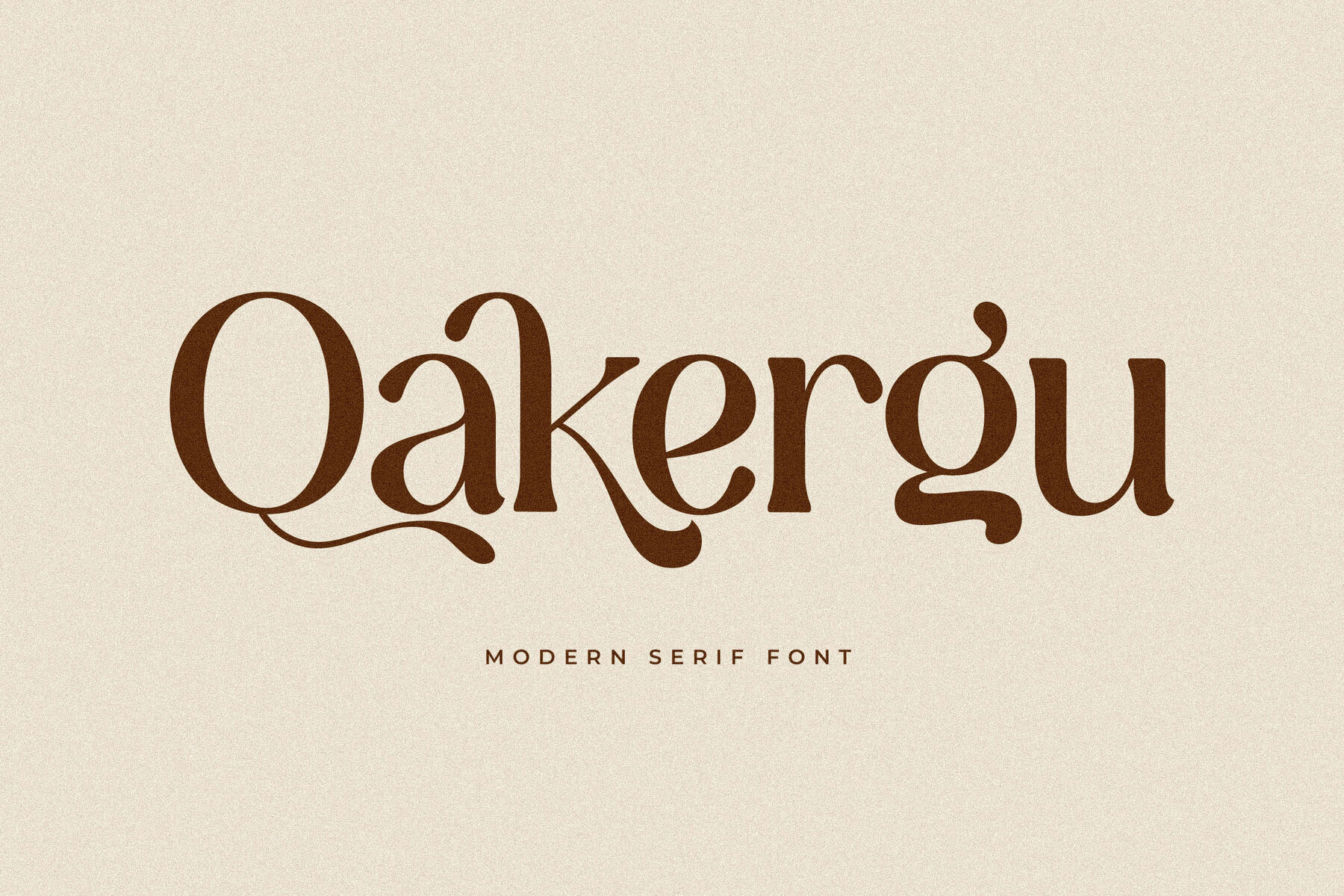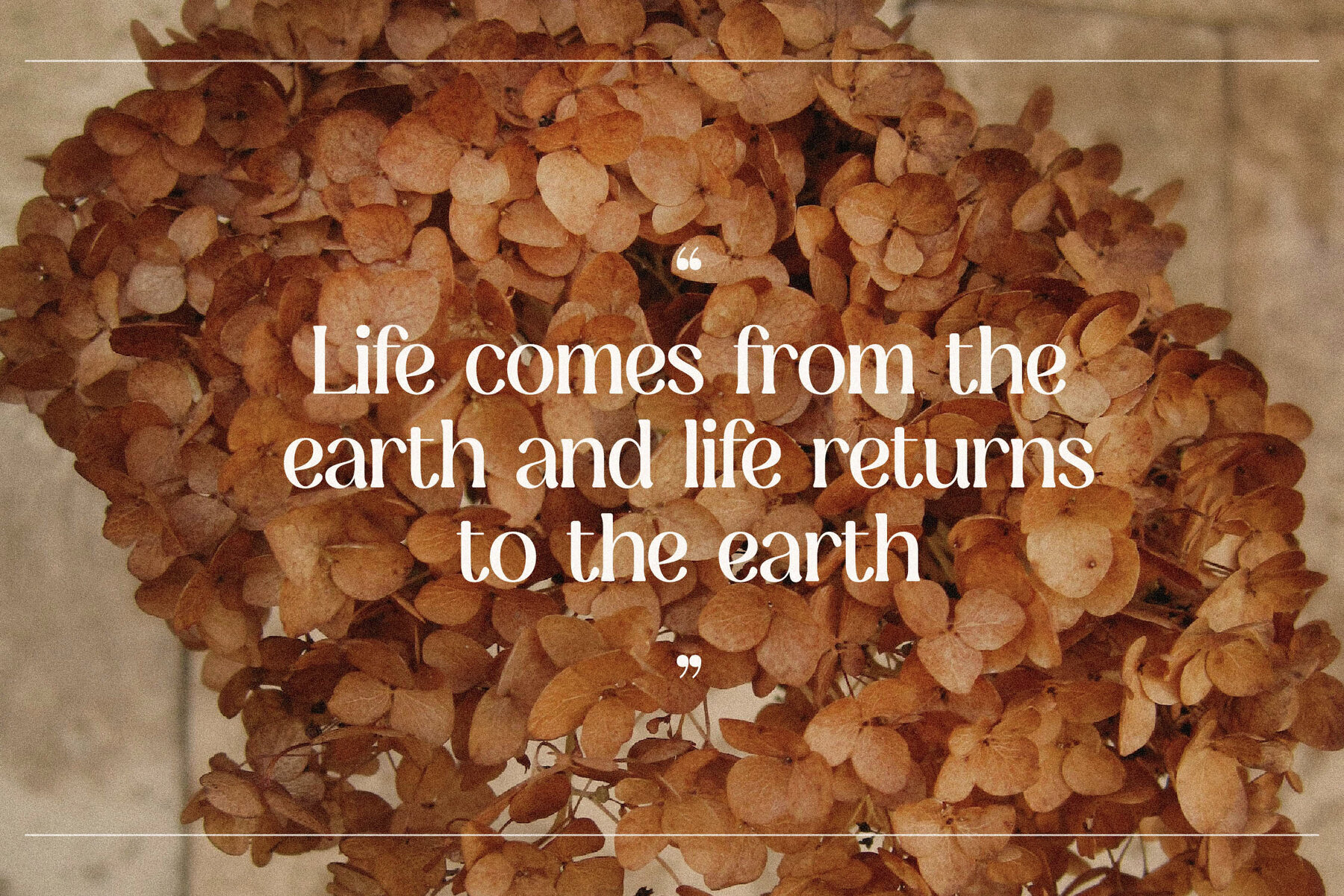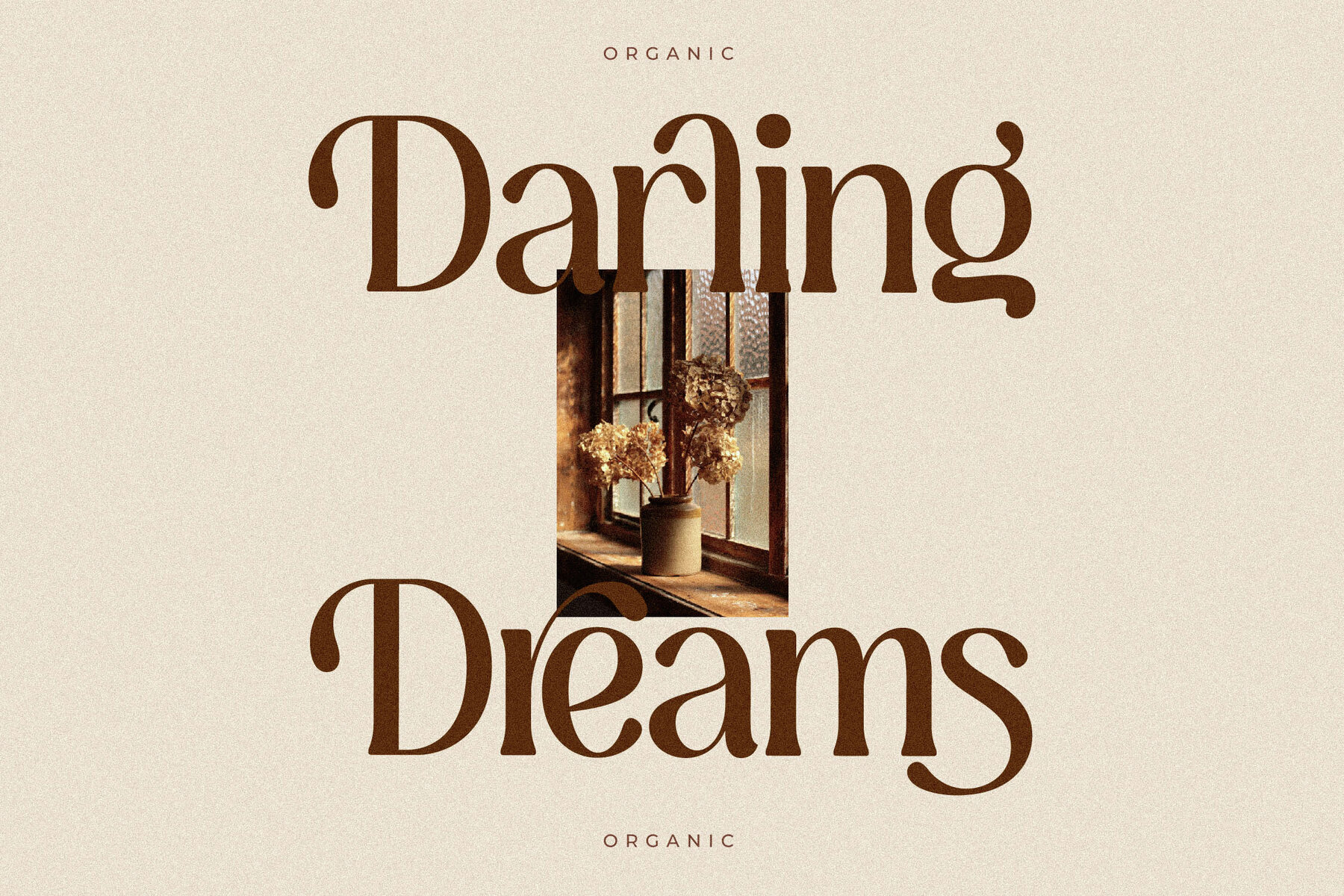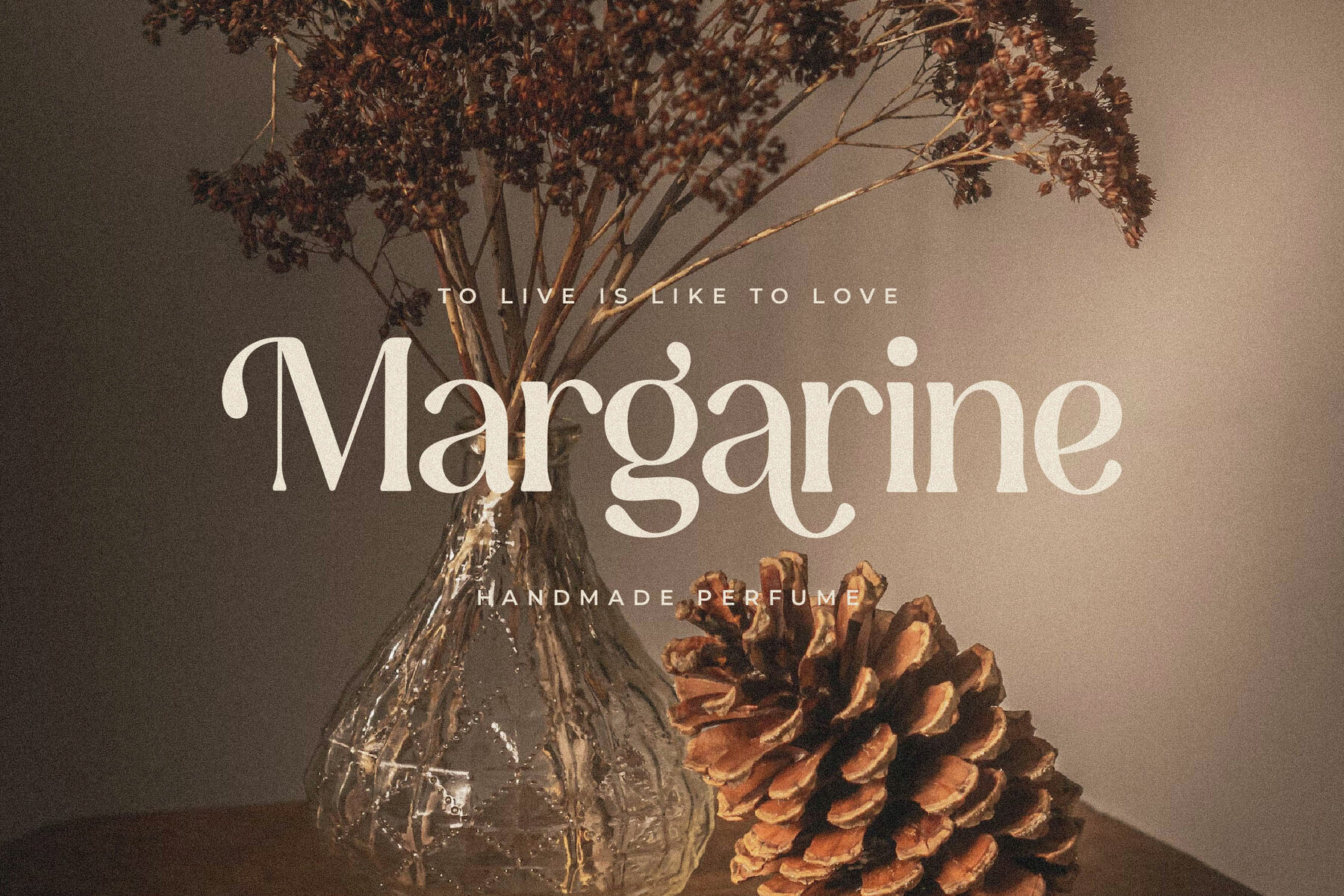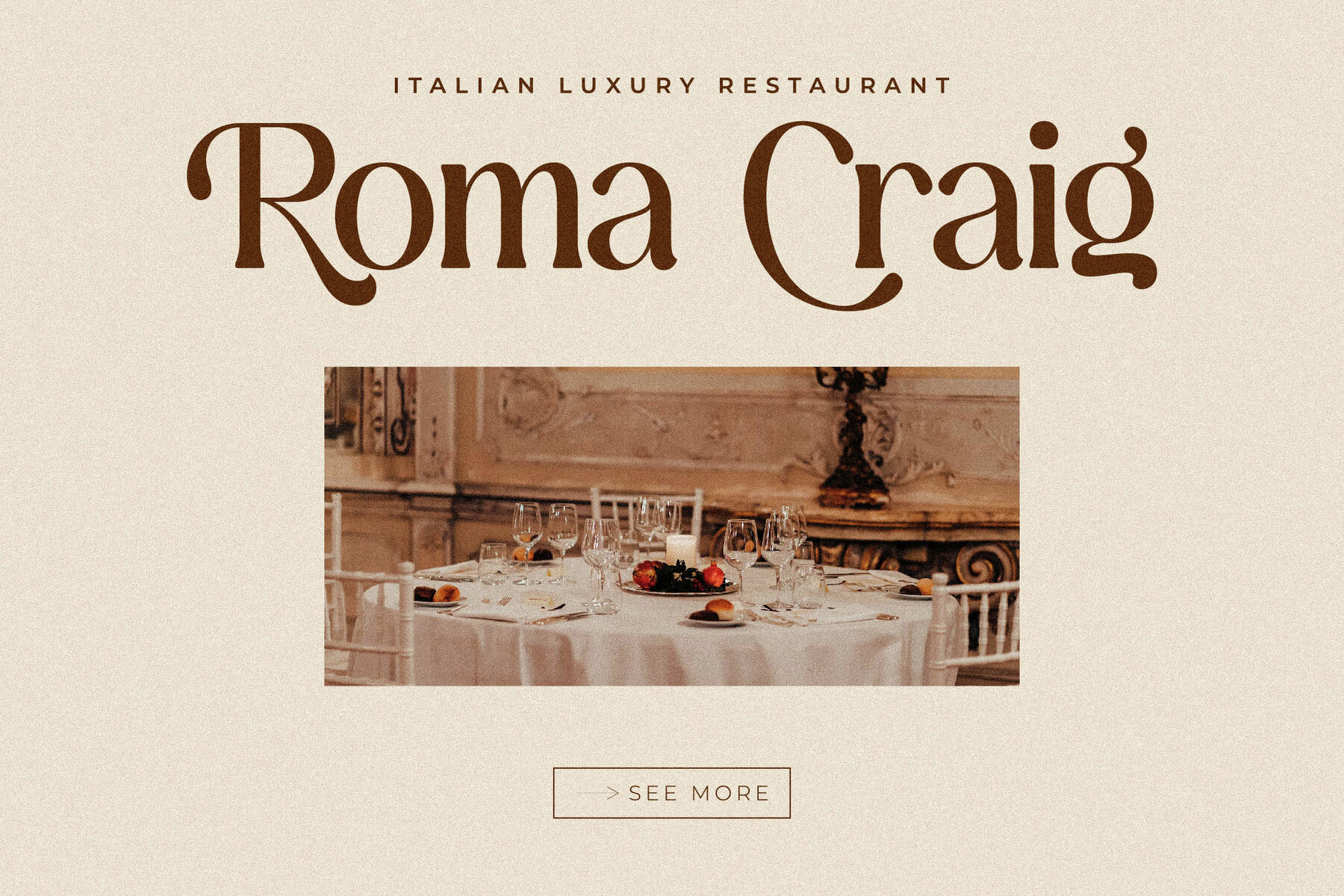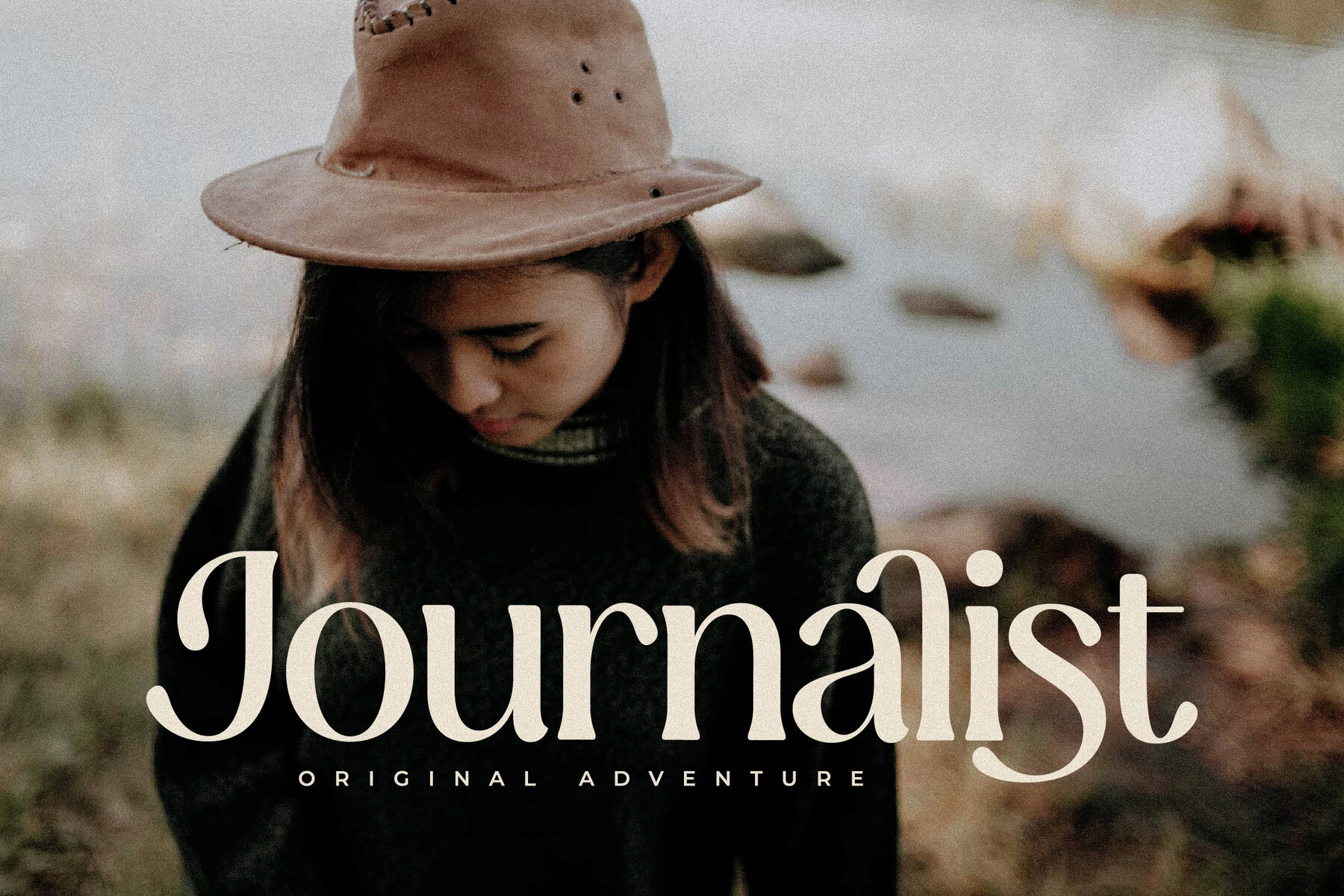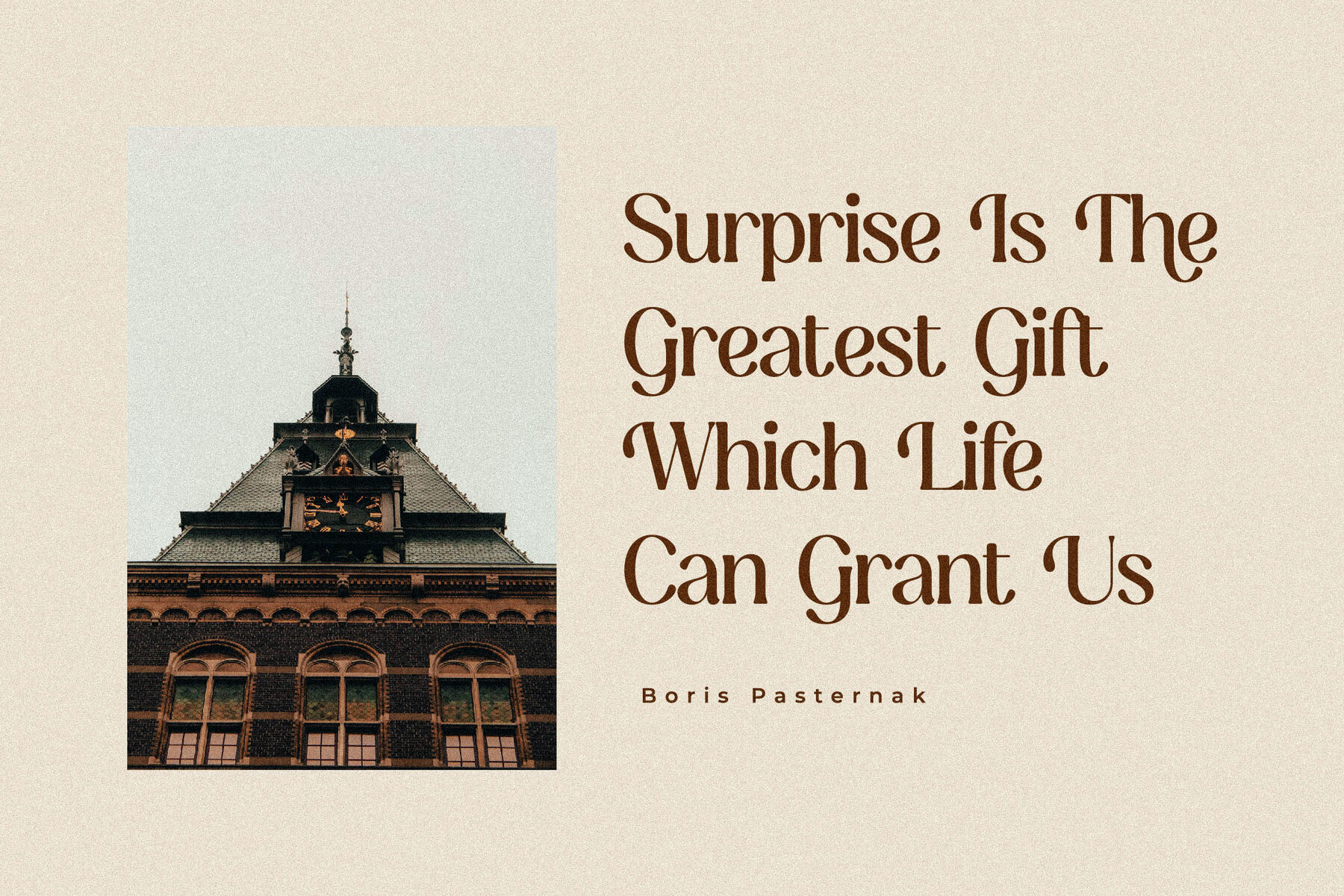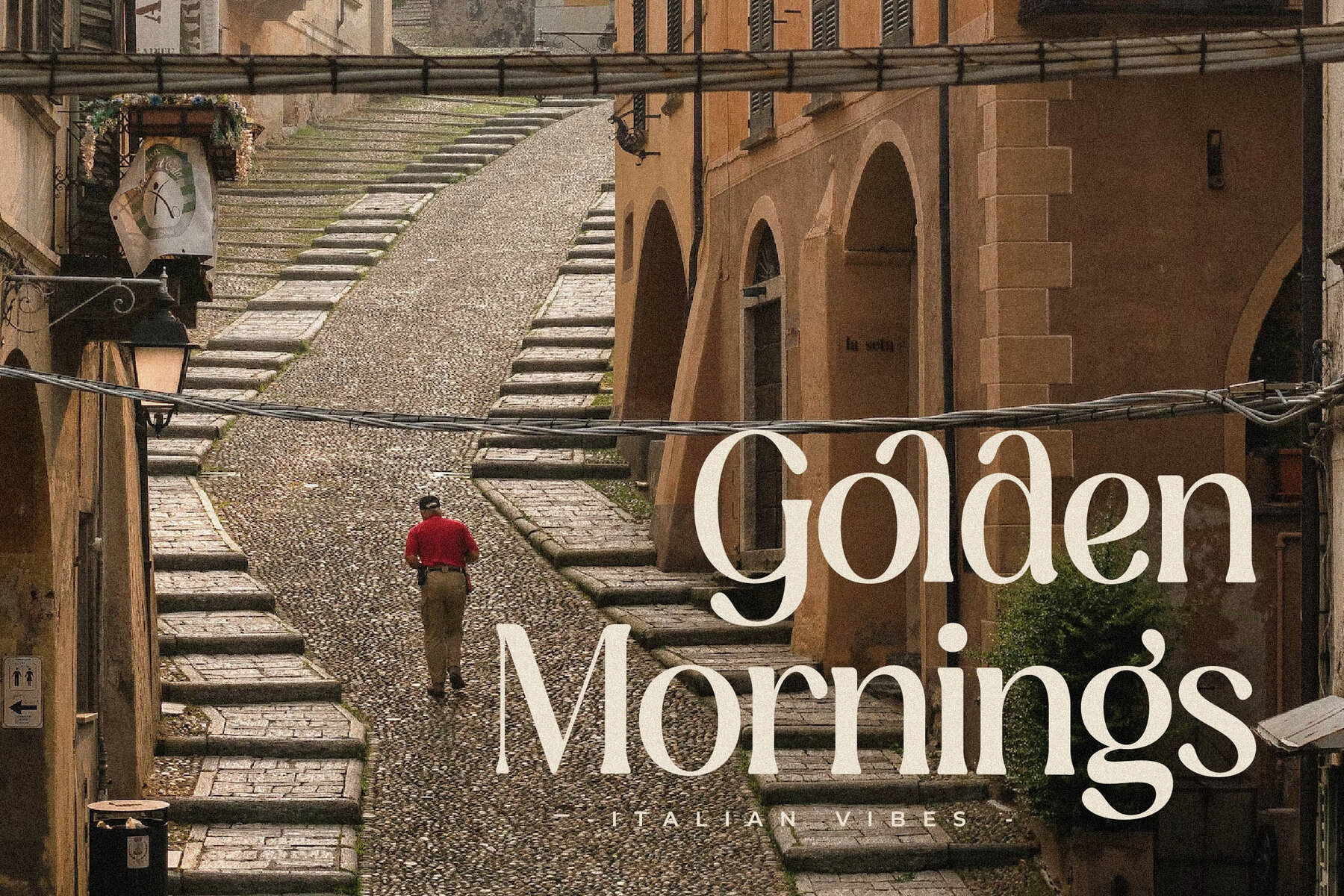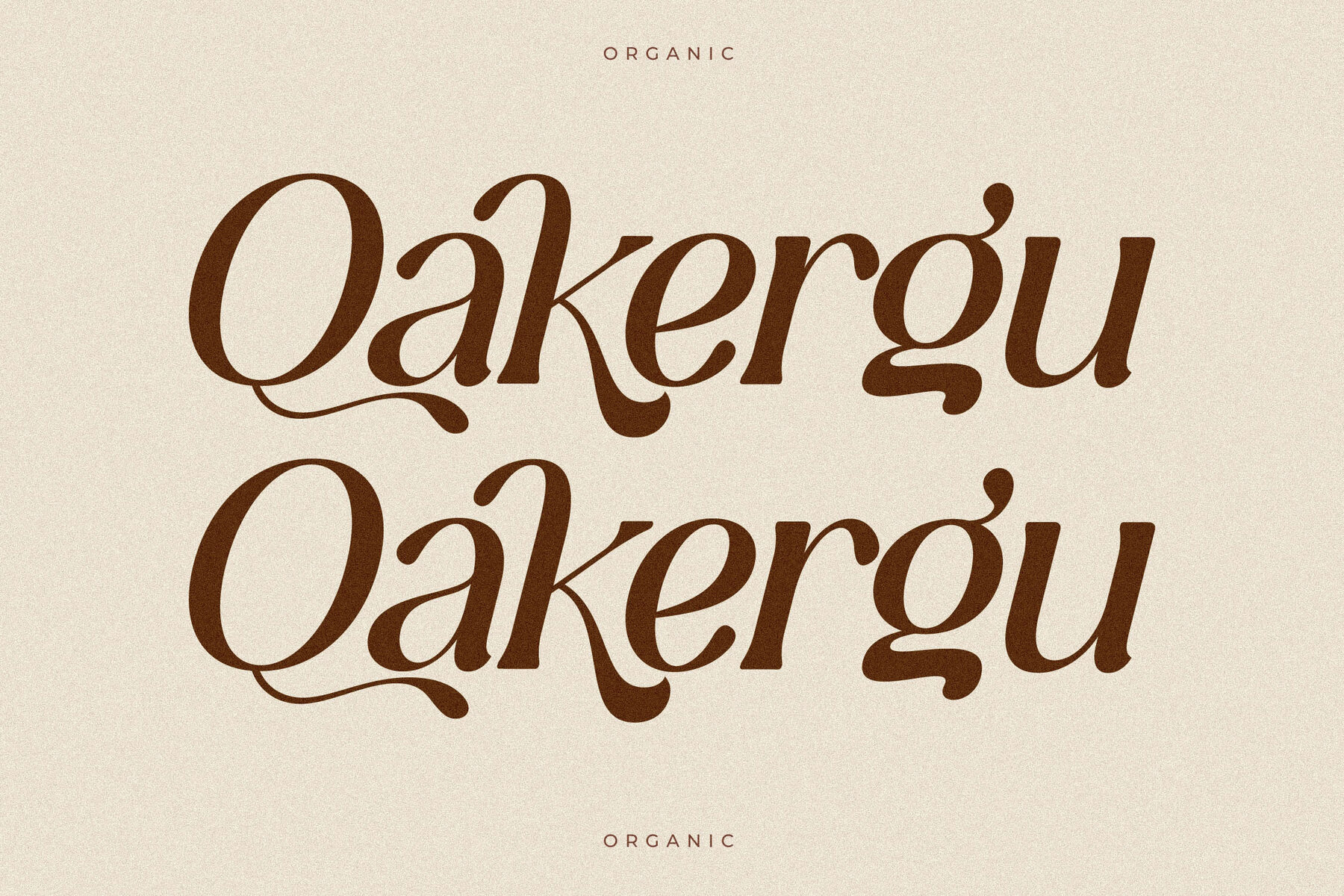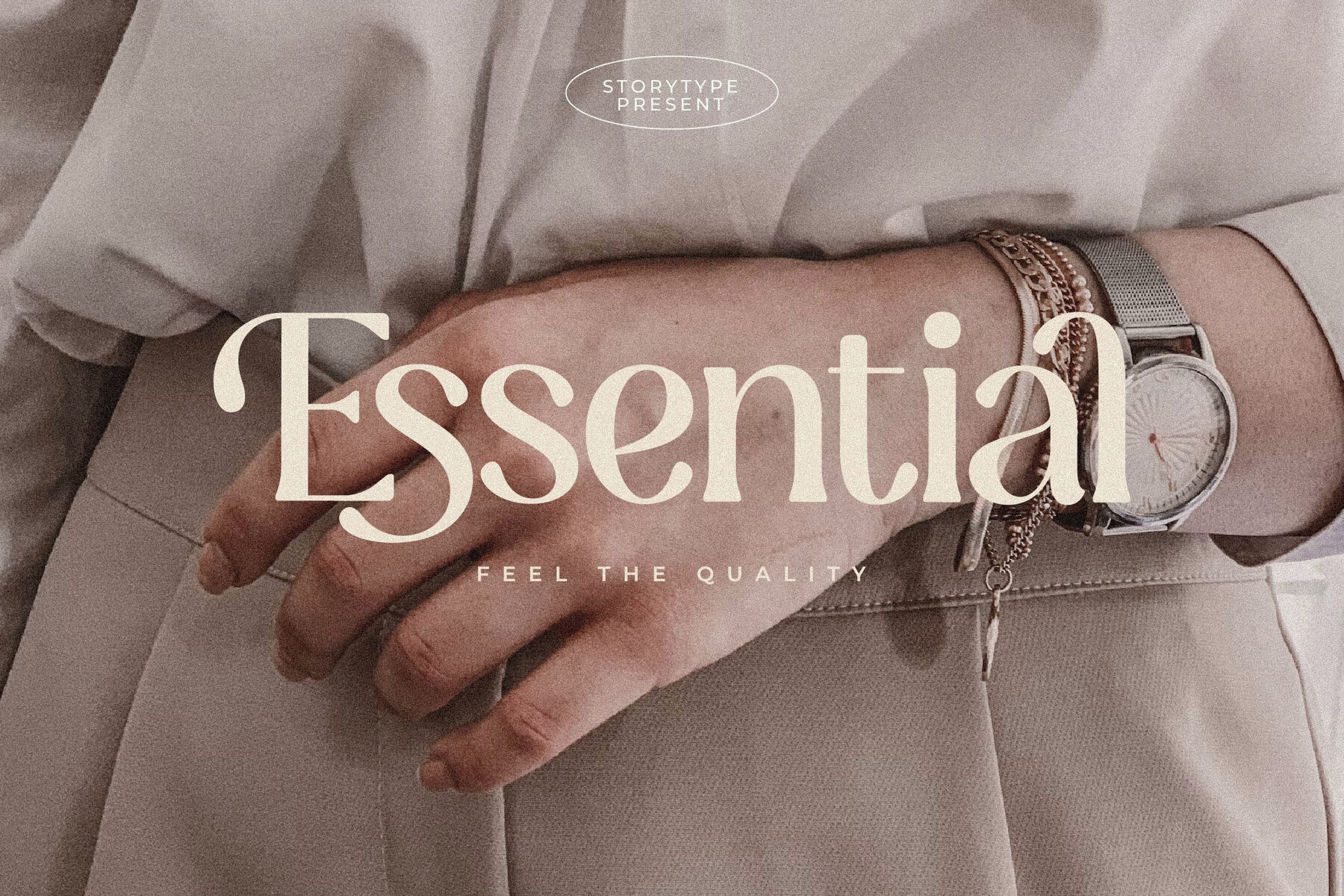
Qakergu Font
Discover the timeless elegance and modern flair of the Qakergu Typeface, a sophisticated serif font crafted by Storytype Studio. Ideal for creating luxurious logos, captivating book or movie titles, and high-end fashion branding, this typeface stands out with its unique style and contemporary appeal. Whether you're designing for a magazine, a clothing line, or crafting inspirational quotes, Qakergu offers unparalleled versatility.Qakergu Typeface: Elegance Redefined